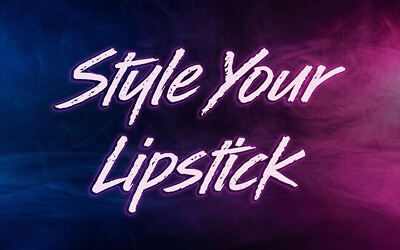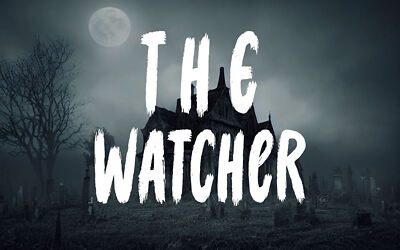
Scriptorial Font
Scriptorial is an elegant calligraphic script font designed by Cat.B. It features fluid, connected strokes, a generous glyph set (195 characters), and a graceful, handwritten aesthetic that suits wedding invites, branding, quotes, and greeting cards.
Scriptorial adds a touch of sophistication and charm to any project—perfect for users seeking a stylish, script-style typeface.
Designed by: Agathe M. Joyce (Cat.B)